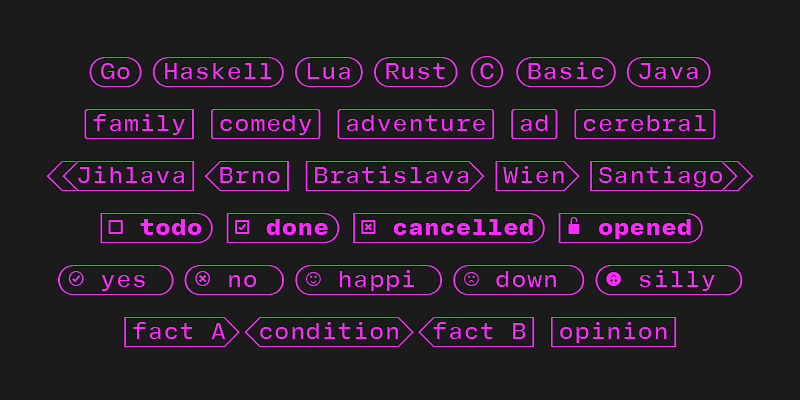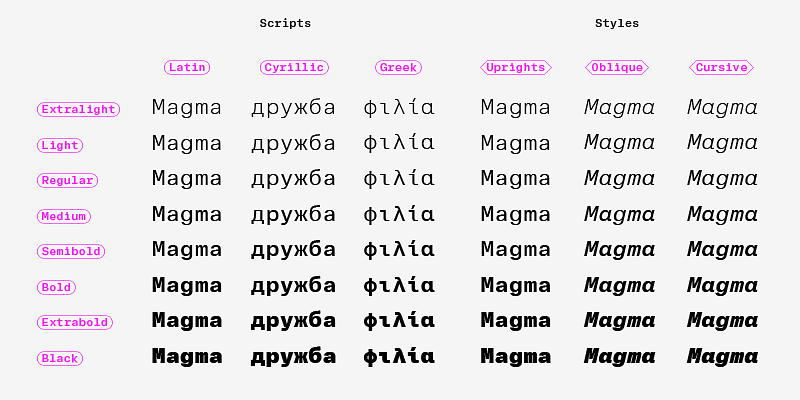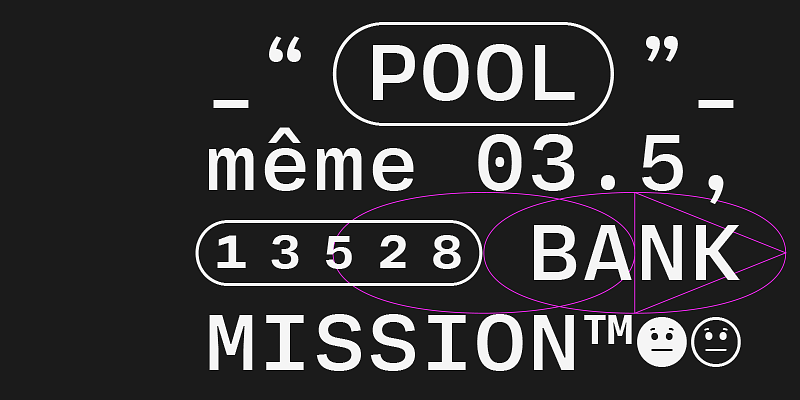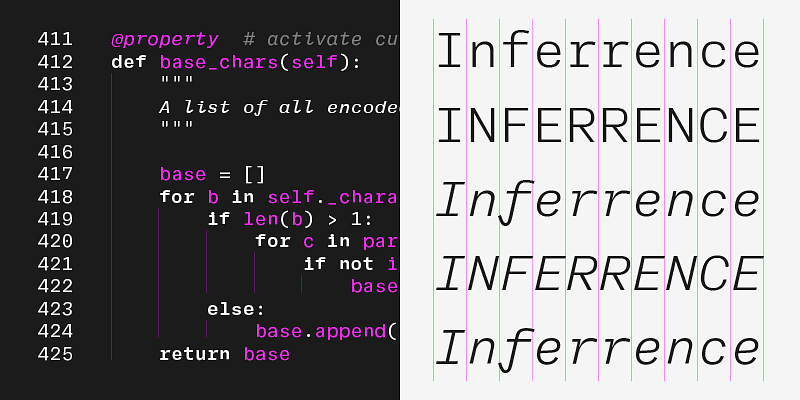
A monospaced type family with an editorial state of mind. It features a range of weights, strongly inclined italics with cursive alternates, and numerous stylistic sets to meet all your fixed-width letter needs.